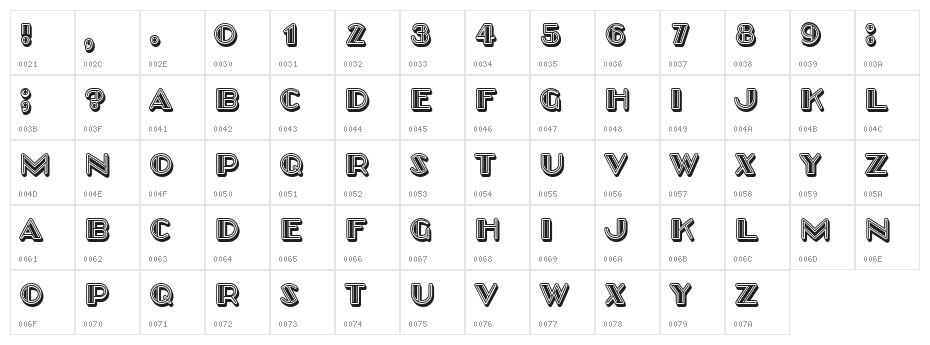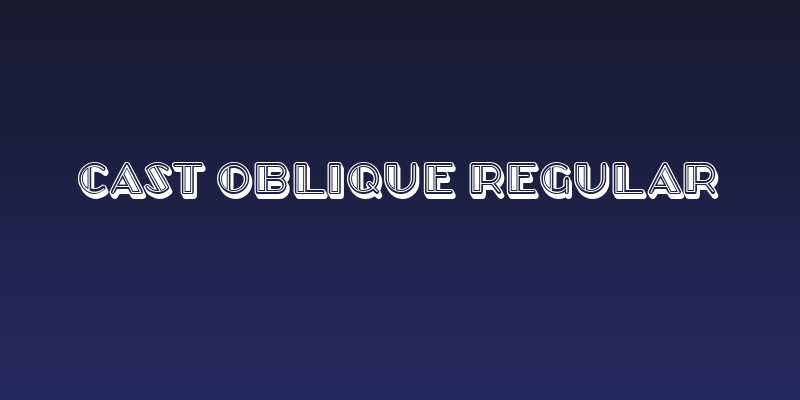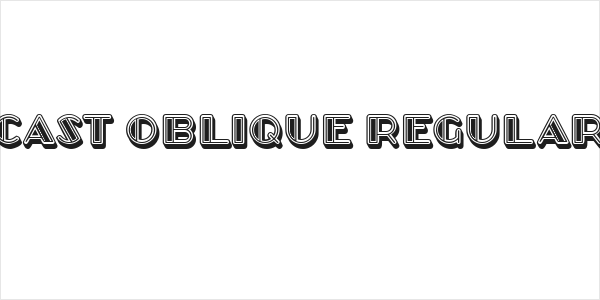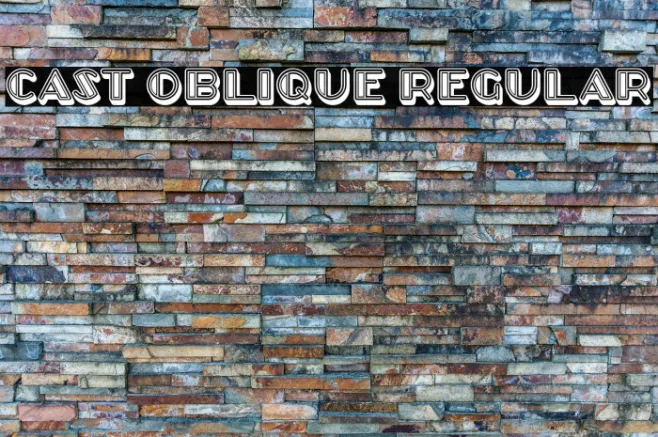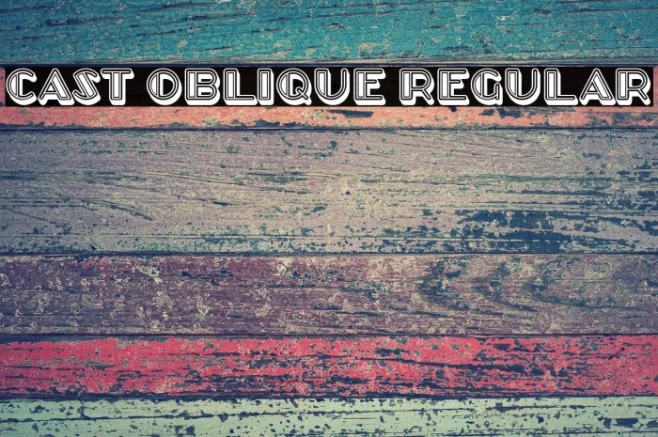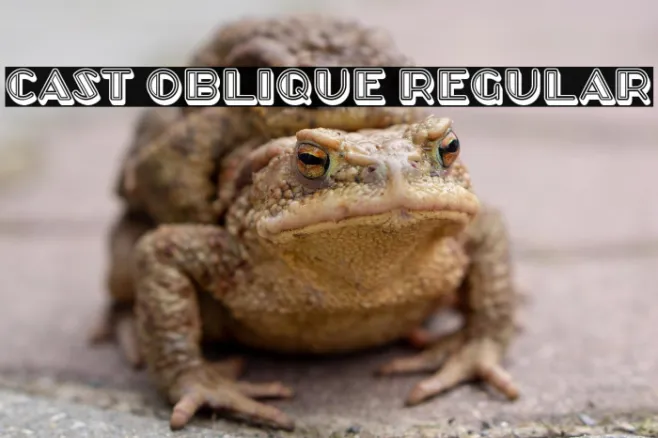
Cast Oblique Regular Font
Cast Oblique Regular Description
This font features a bold, geometric design with a distinct three-dimensional effect, achieved through the use of layered outlines and shadowing. The characters are uppercase and numerals, each with a consistent width and height, creating a uniform appearance. The style is modern and eye-catching, making it suitable for attention-grabbing headlines or titles. The font's oblique nature adds a dynamic feel, while the regular weight ensures readability. The spacing between characters is normal, allowing for clear legibility even at smaller sizes. The high contrast between the thick outlines and the inner spaces enhances the font's visual impact.